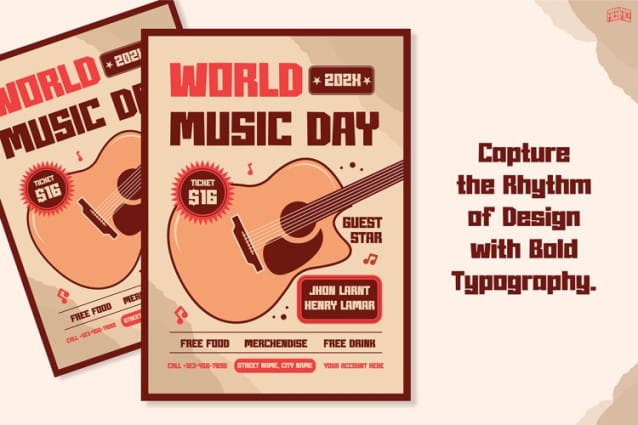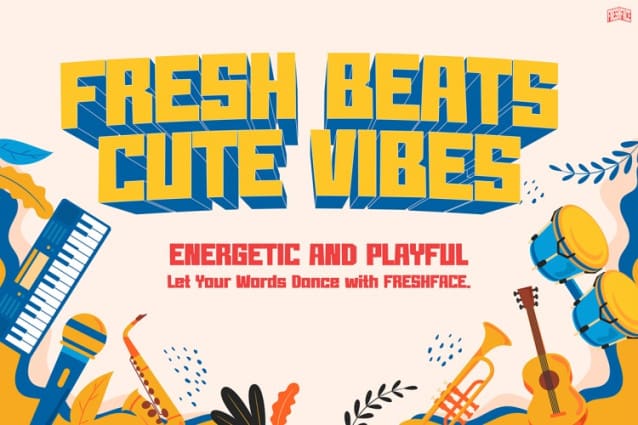
Freshface Font
Freshface Font is a bold and vibrant display font that exudes youthful energy and charm. Designed with clean geometric shapes and a retro-modern aesthetic, it is perfect for grabbing attention while maintaining a fun and approachable vibe. Furthermore, its bold structure and smooth curves make it ideal for children-focused materials and bold branding designs. Whether you’re creating event posters, educational resources, or trendy merchandise, Freshface Font adds a fresh and dynamic touch to your designs.
The font’s striking design brings joy and excitement to every project. Moreover, its modern look and playful personality make it adaptable for both digital and print media. Freshface works beautifully with vibrant colors, playful illustrations, and minimalist layouts. As a result, it ensures your message is clear and visually engaging. It’s not just a typeface—it’s also a tool to inspire creativity and spark curiosity.
With its clean and approachable style, Freshface Font is a great choice for professional and playful designs alike. Additionally, its versatility and boldness help your work stand out, making it a reliable option for impactful projects.